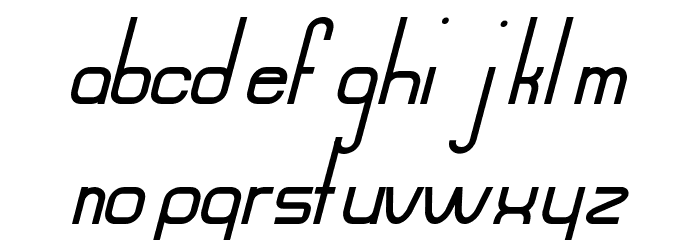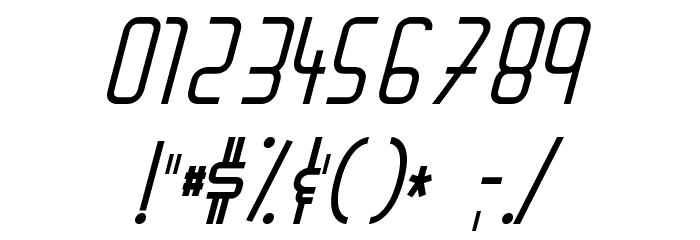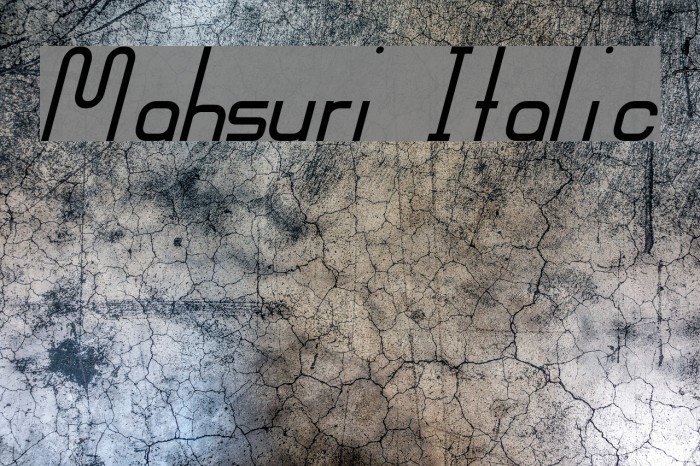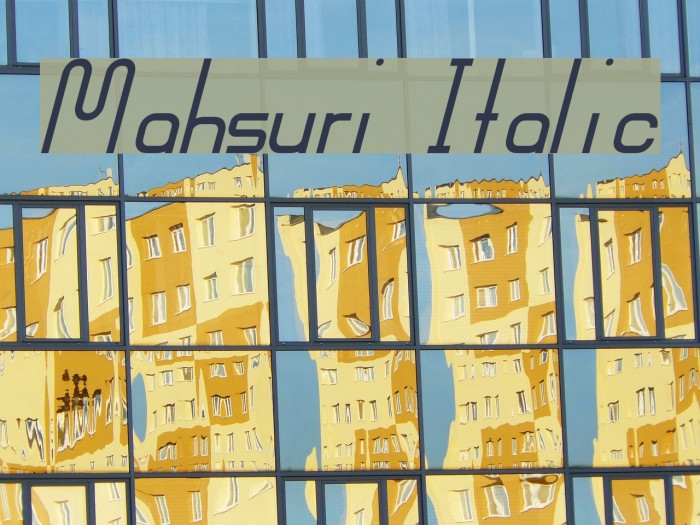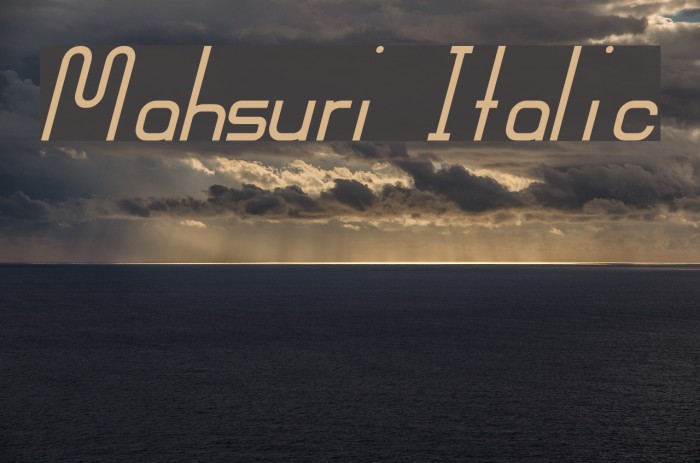
Mahsuri Italic Font
This font features a sleek and modern italic style with a distinct slant that gives it a dynamic and forward-moving appearance. The characters are elongated with a consistent stroke width, creating a uniform and cohesive look. The uppercase letters are tall and narrow, while the lowercase letters maintain a similar proportion, enhancing readability. The numerals are clear and well-defined, matching the overall aesthetic of the alphabet. Special characters are included, maintaining the same stylistic approach. This font is ideal for projects that require a contemporary and stylish touch.
A sleek, modern italic font with elongated characters and consistent stroke width.
- Proposed Projects: Ideal for branding, advertising, fashion magazines, and modern web design.